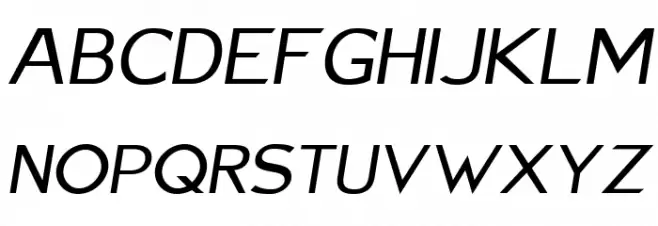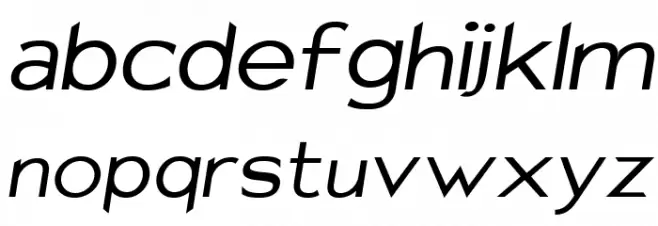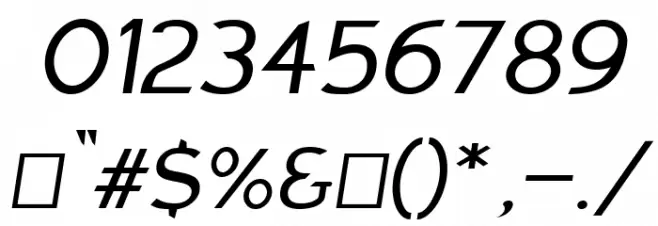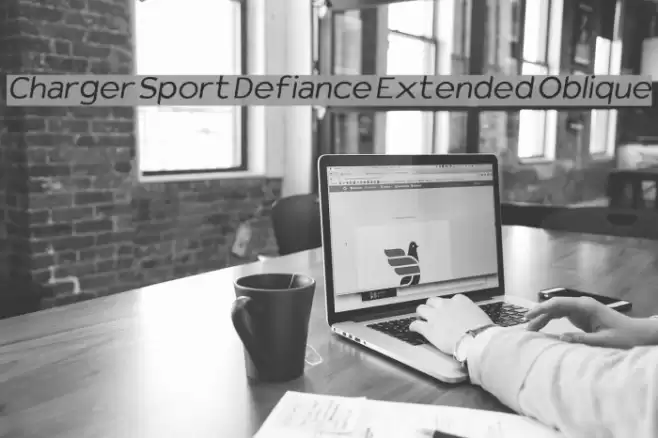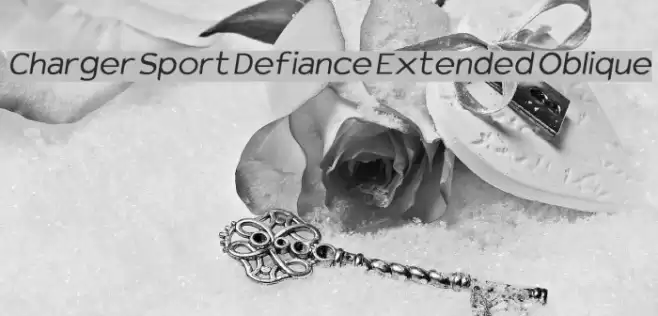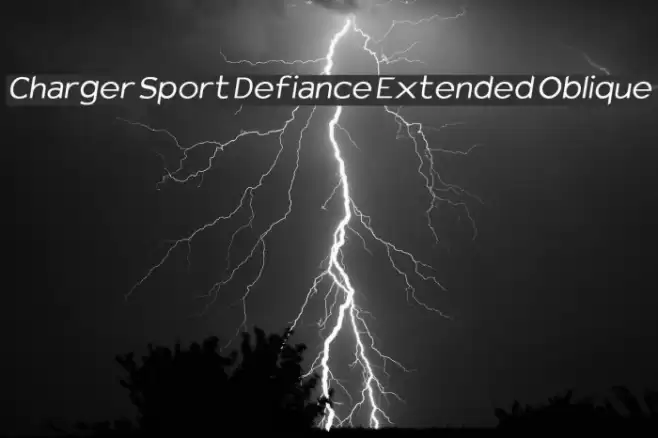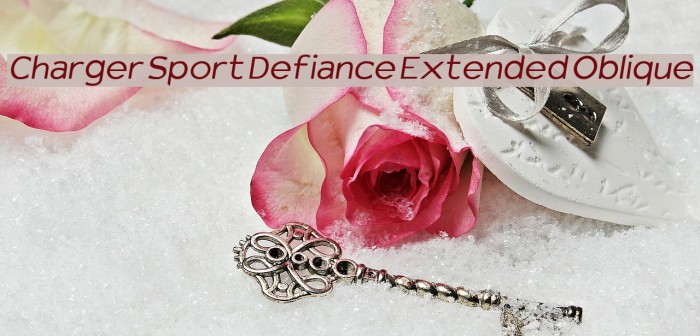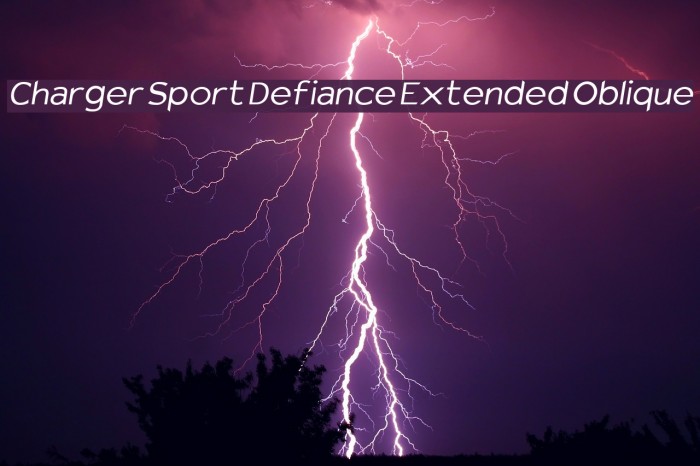
Charger Sport Defiance Extended Oblique
This font features a sleek, modern design with an oblique style, giving it a dynamic and sporty appearance. The characters are extended, providing a sense of movement and speed. The uppercase and lowercase letters maintain a consistent slant, enhancing the overall aesthetic. The numerals are clear and bold, ensuring readability. Special characters are well-defined, complementing the font's contemporary look. The smooth curves and sharp angles create a balanced contrast, making it suitable for various design applications.
A modern, oblique font with an extended, sporty design.
- Proposed Projects: Ideal for sports branding, dynamic posters, automotive advertisements, and modern web design.
- Width: Expanded